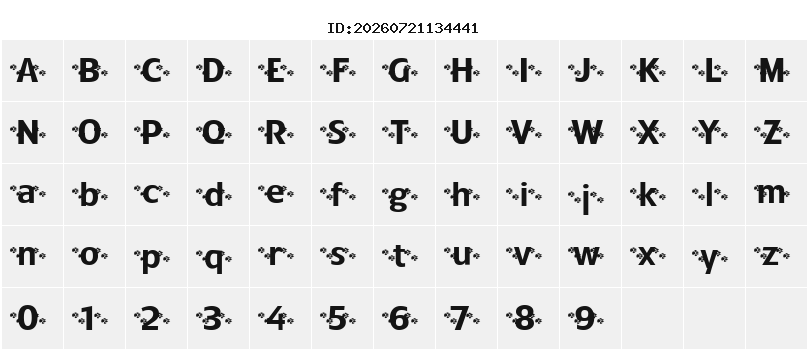
FerretFootPrints Preview
• Font Name: FerretFootPrints
• Full Font Name: FerretFootPrints
About FerretFootPrints.ttf
FerretFootPrints.ttf is a modern, elegant sans-serif font designed for ultimate readability and visual harmony. Perfect for branding, headlines, web design, and print materials.